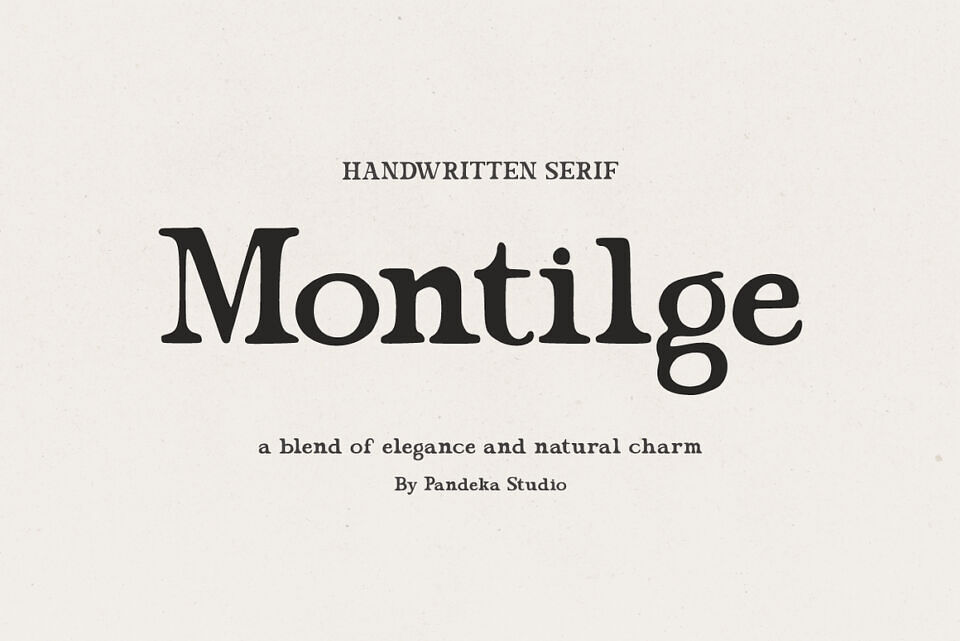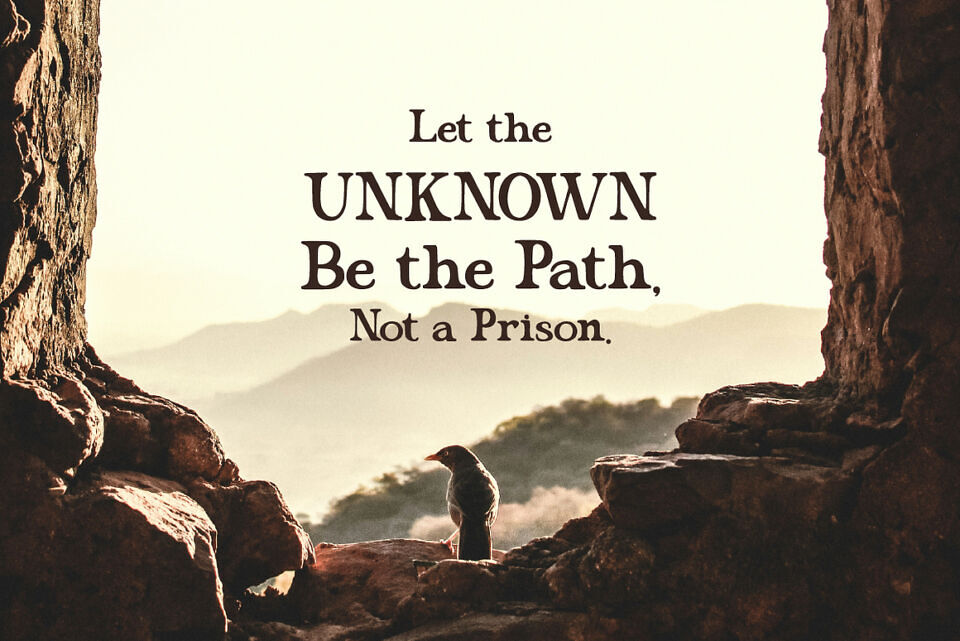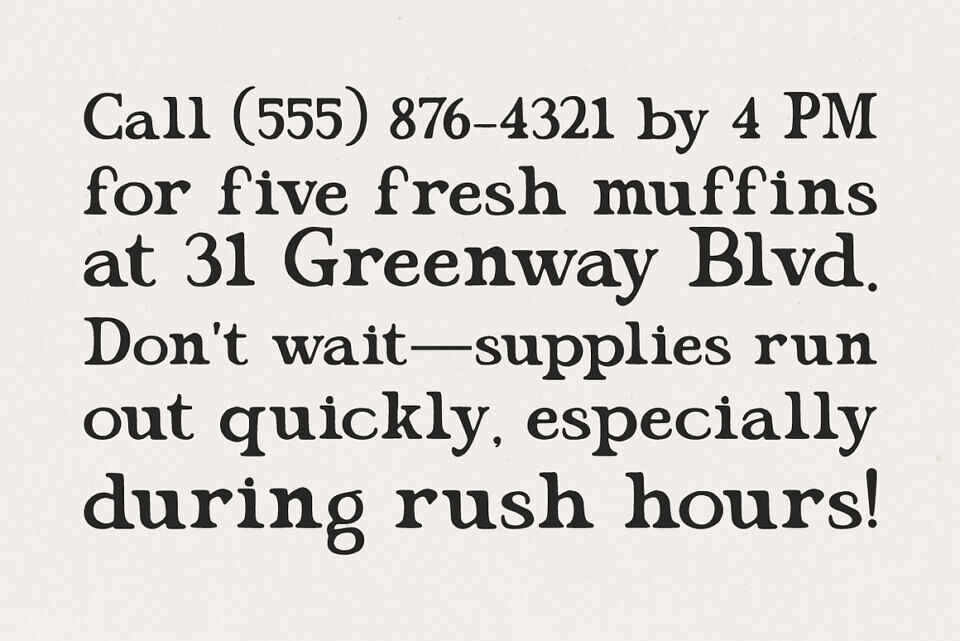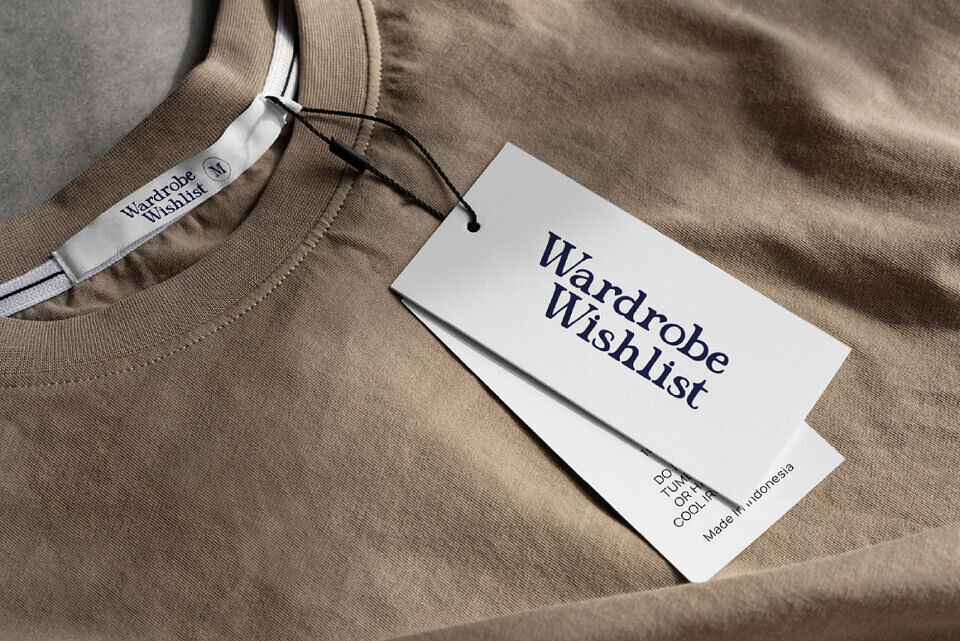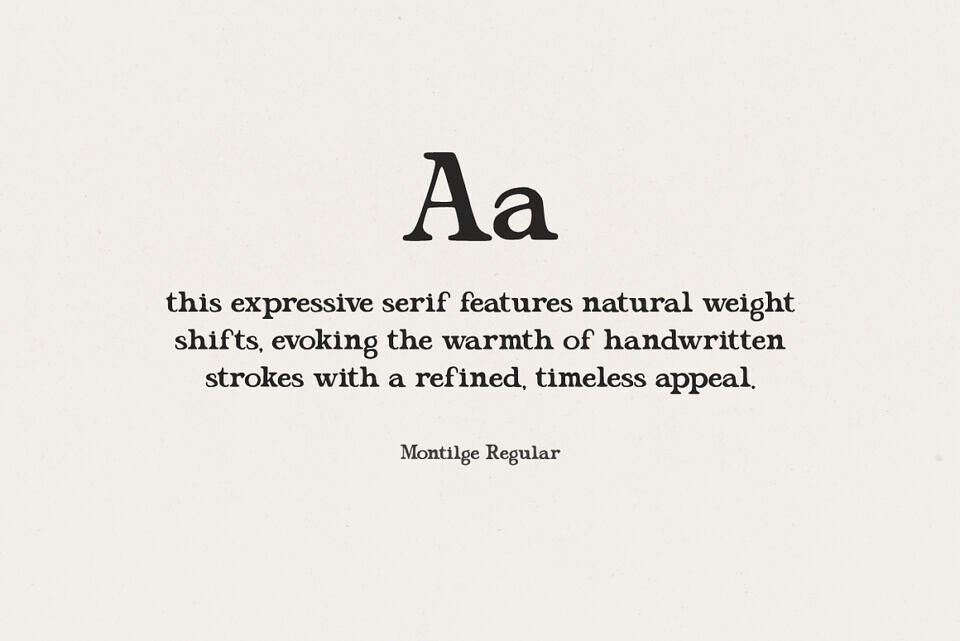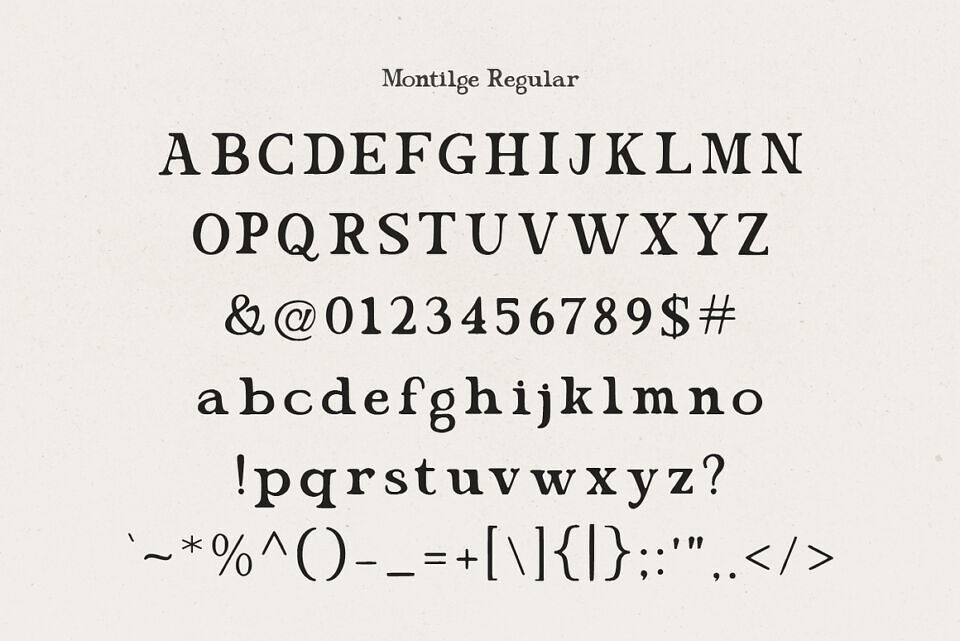
Montilge is a natural handwritten serif font with elegant typography and a rustic aesthetic. Perfect for timeless designs, classic lettering, and authentic projects like branding, editorial layouts, and packaging. Montilge’s unique style adds a touch of warmth and sophistication to any creative work.